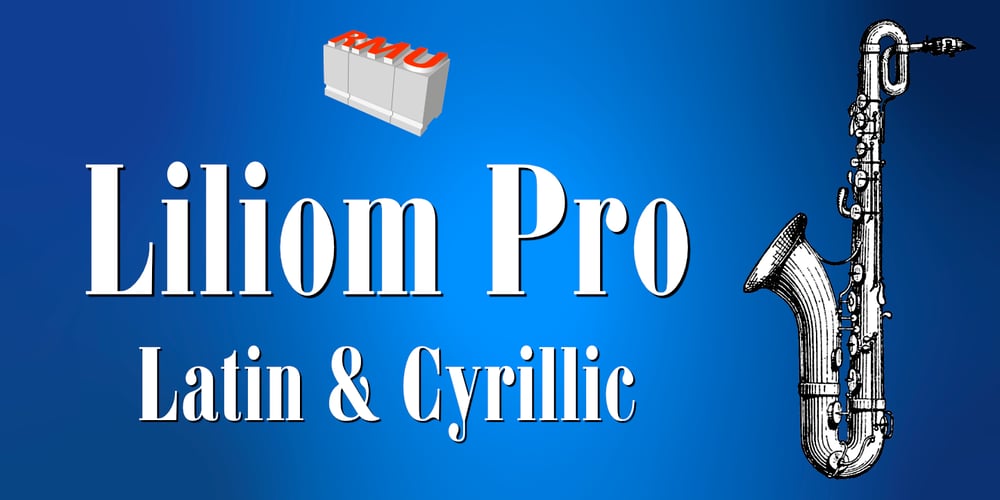
Liliom Pro Font Family was designed by Ralph M. Unger and published by RMU. Liliom Pro contains 1 styles and family package options. An eye-catching, multilingual and versatile compressed serif font of French origin.